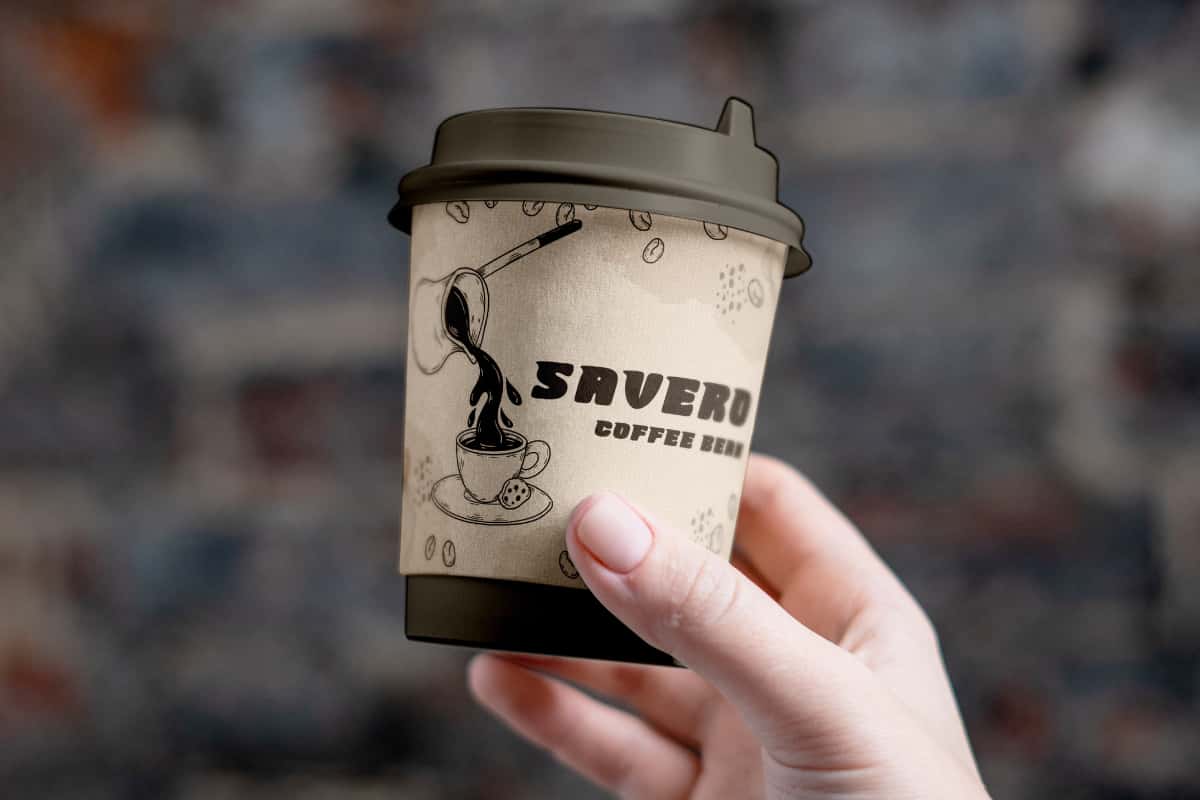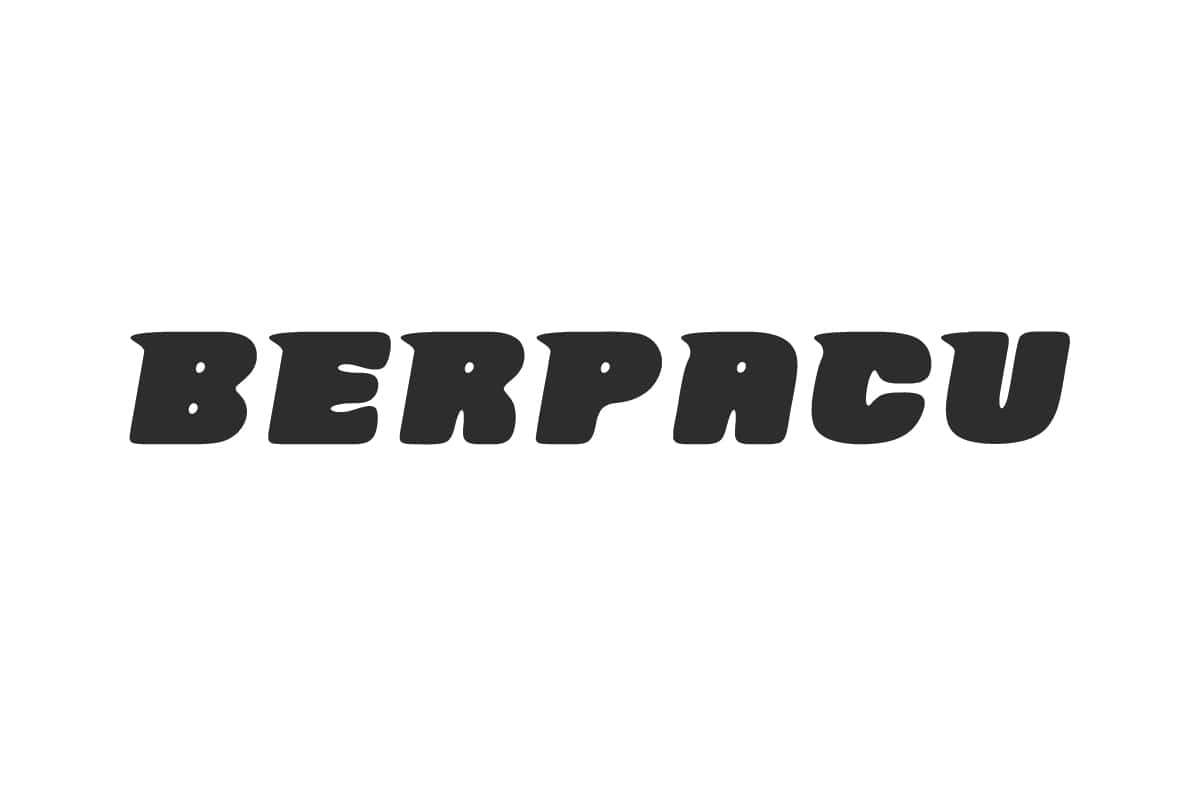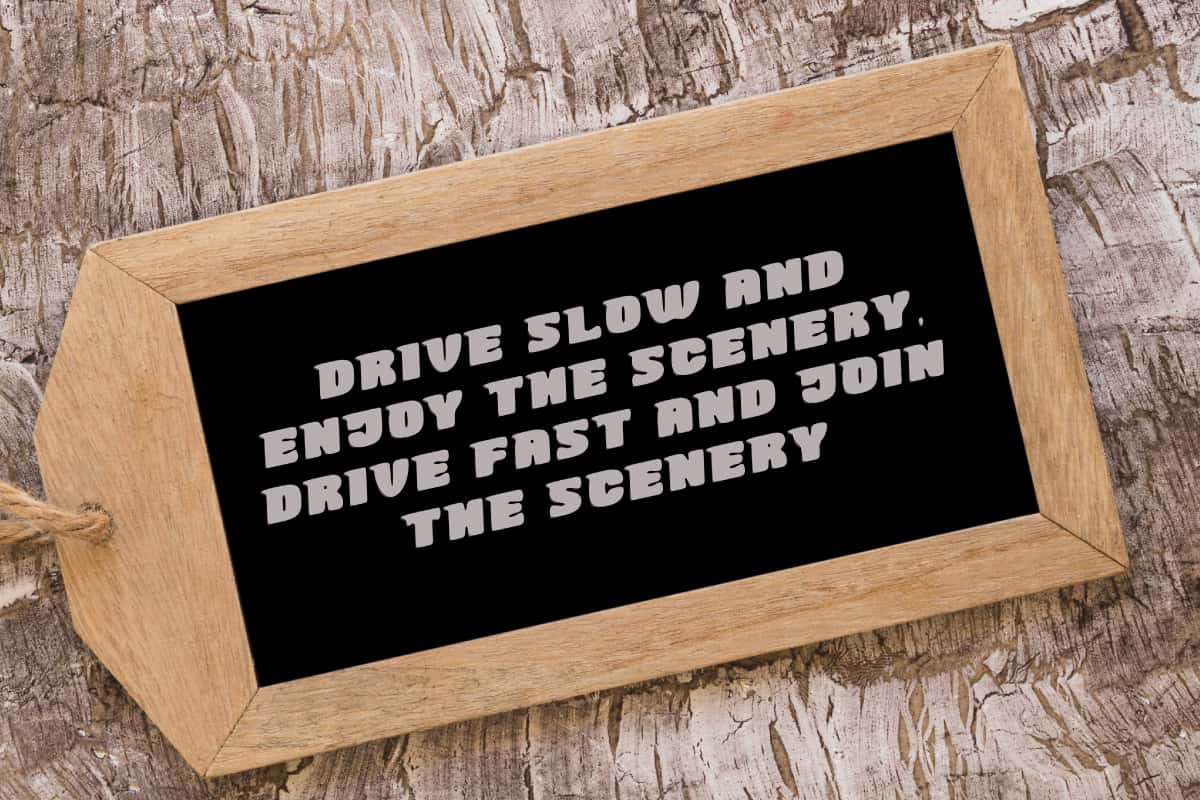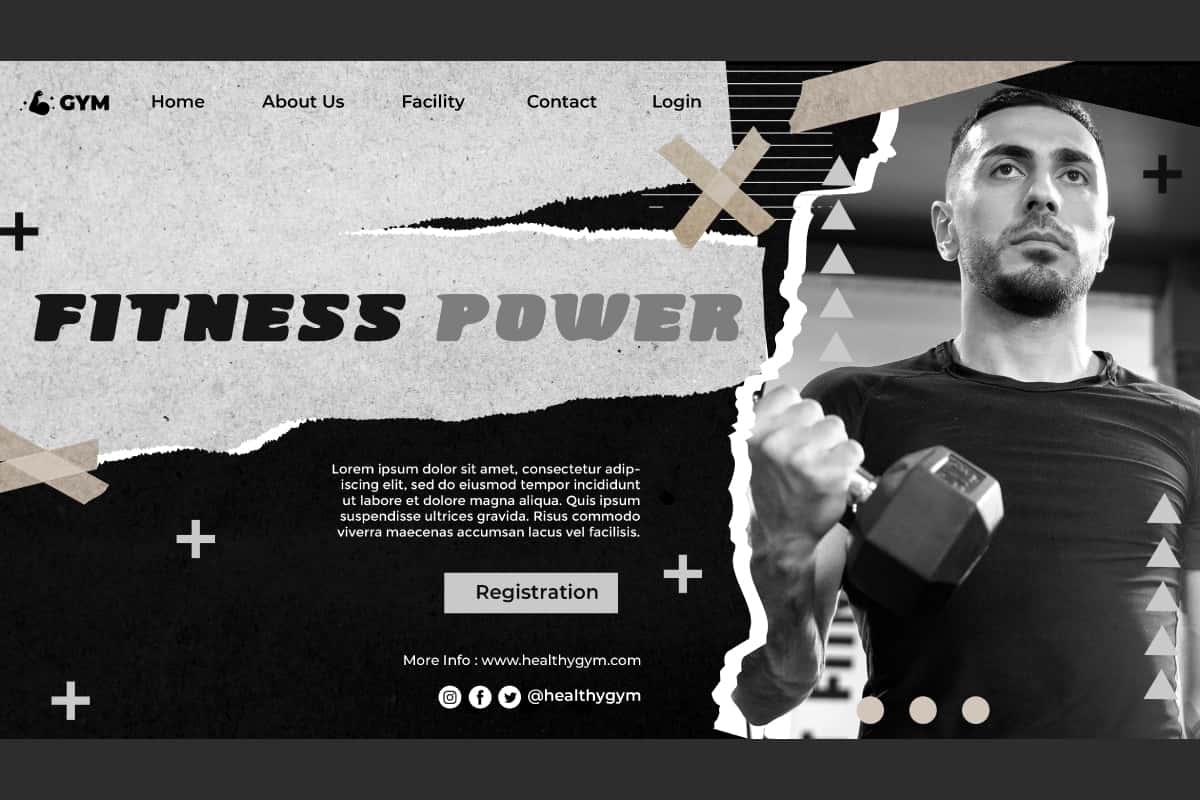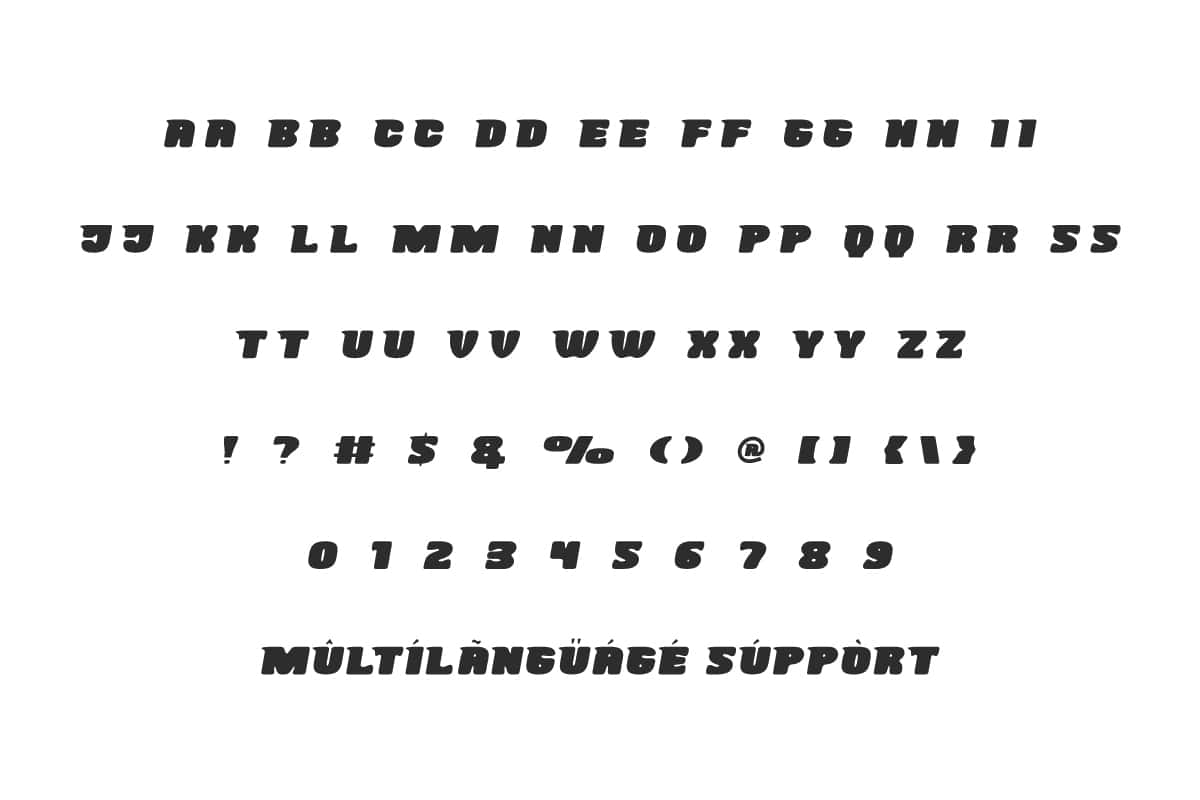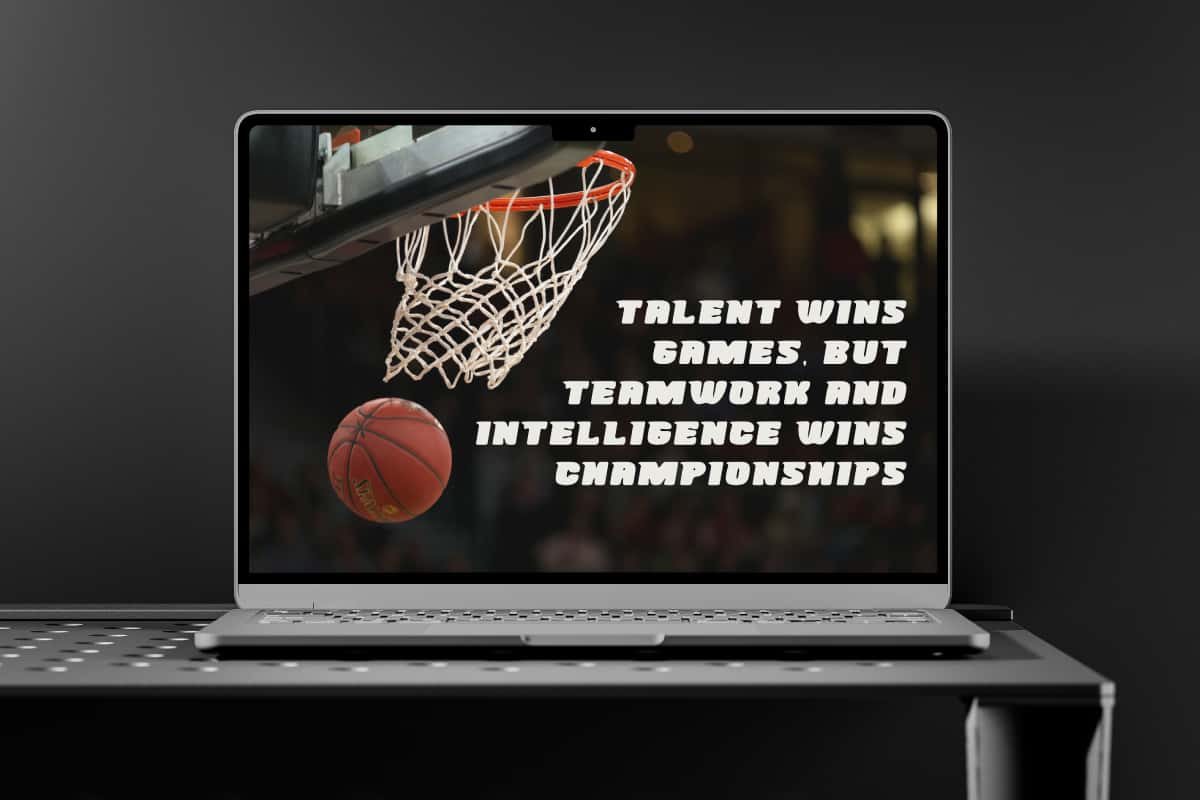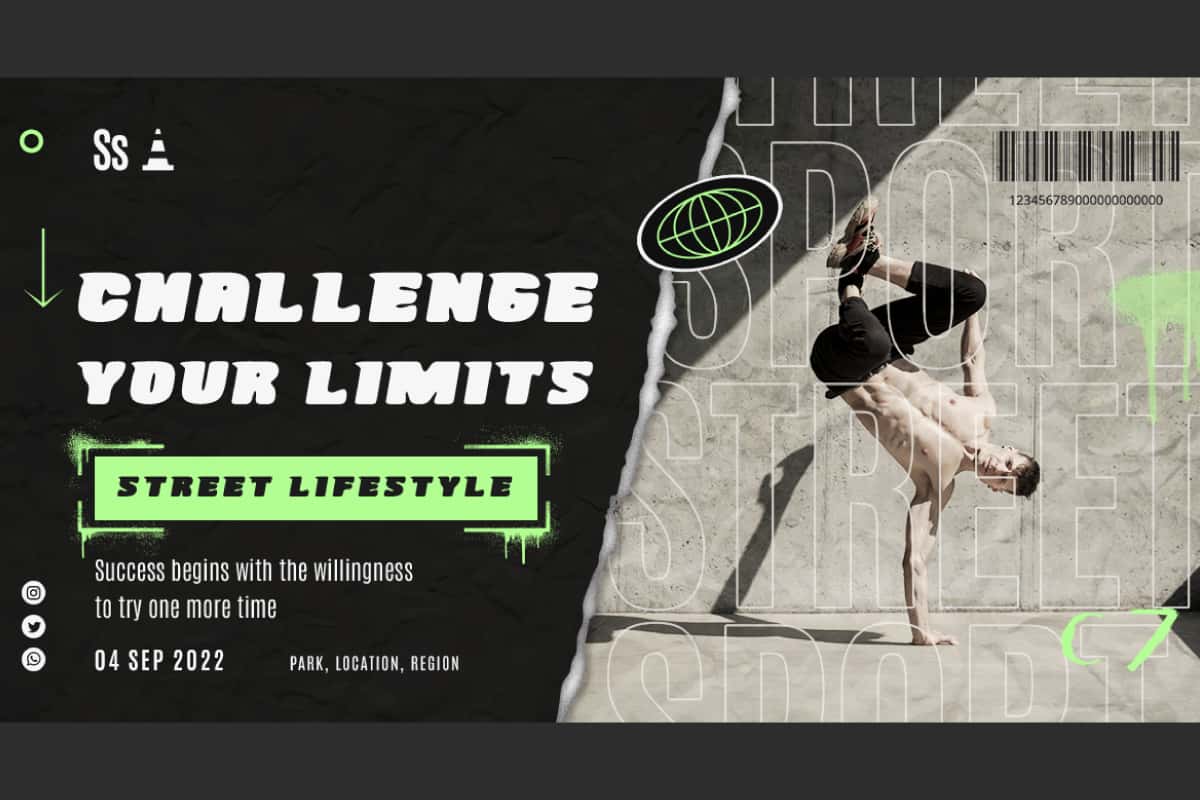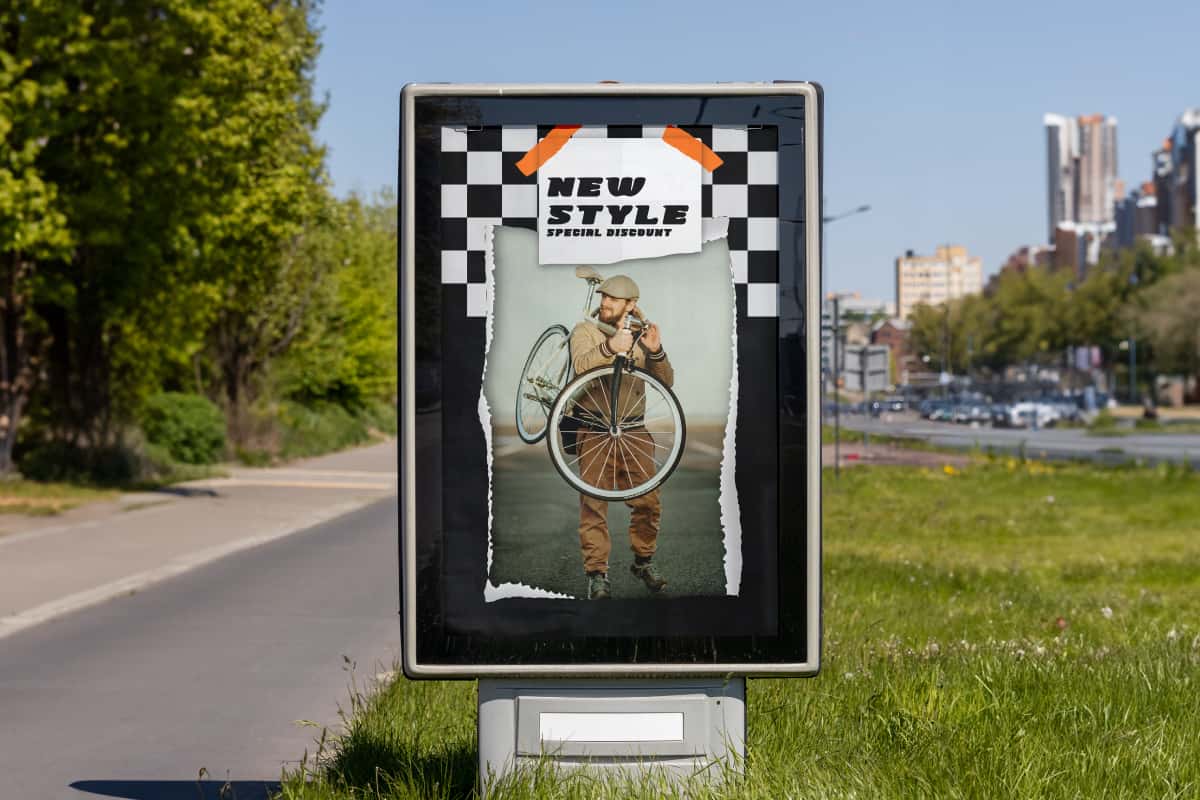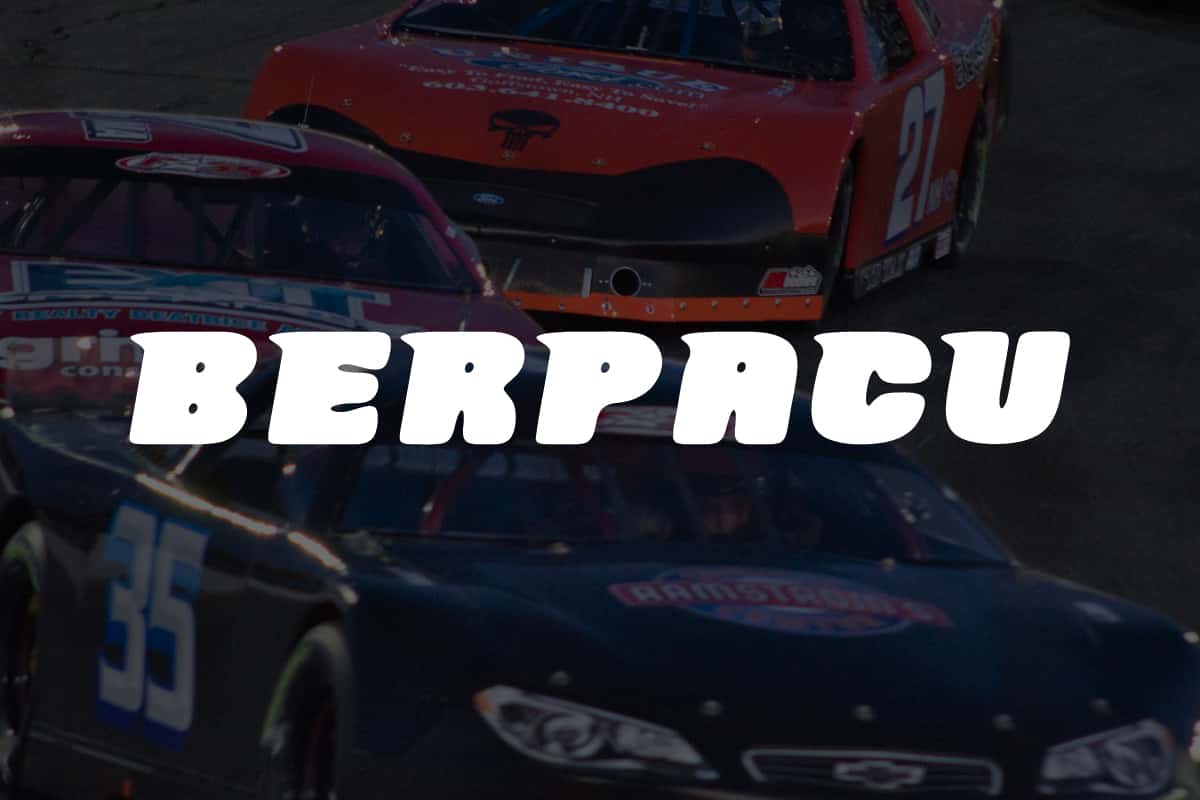
Berpacu Font is a fun racing sport comic styled all caps designed with style and weight to provide flexibility and creativity to enhance your designs easily.
Berpacu Font is a fun unique speedy comic bold strong styled sports display font that is quite thick and dense. Created to help you create more creative and powerful digital and print art, it can be used for apps, banners, billboard, brand logo, brochure, blogs, decal sticker, headers, mockup, paper cup sleeve, poster, sign board, template, title, websites, etc.
Berpacu Font includes full set of ALL CAPS for Uppercase and Lowercase Basic Characters, Numbers, Punctuation and Symbols. Definitely a bold font with a unique feel. Made in a nice and efficient way so it is a great choice if you want a sporty look in your design. Perfect for advertising, cafes, fashion, graphic design, gym & fitness, sportswear, etc.